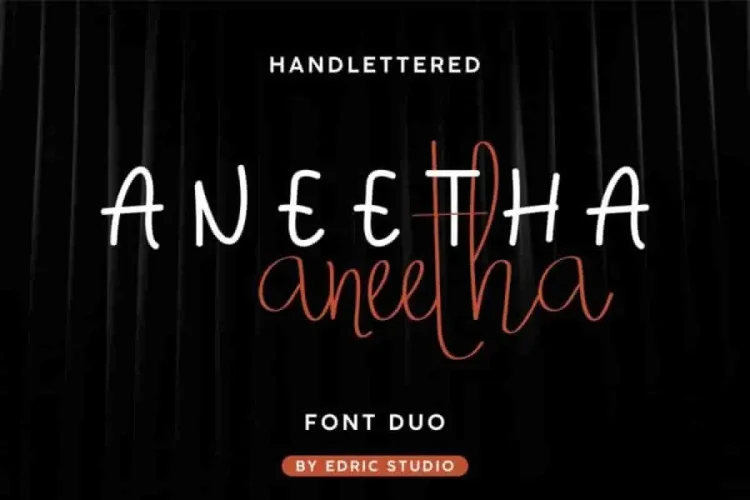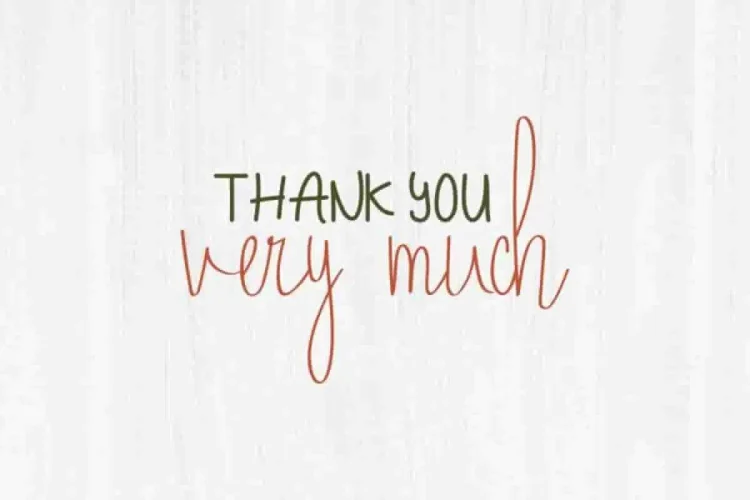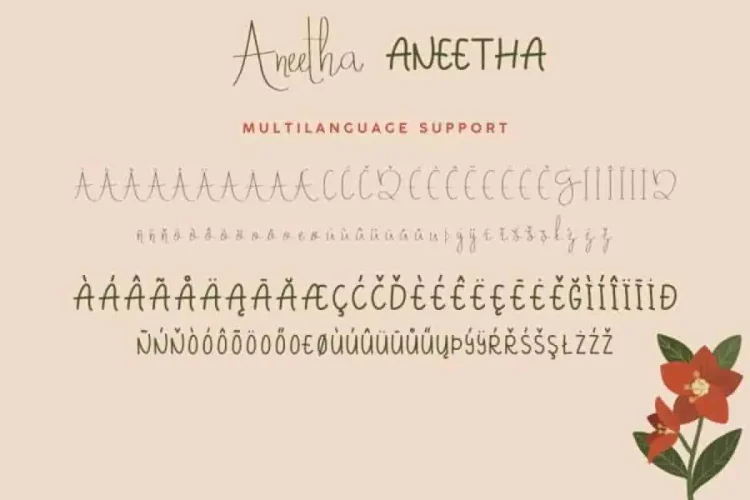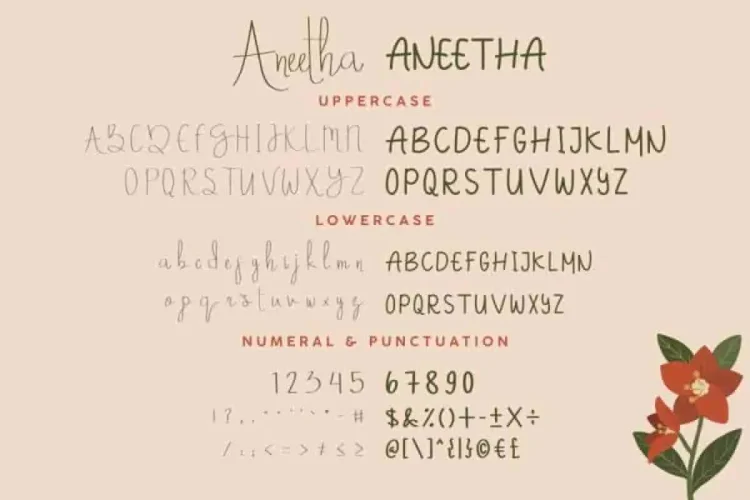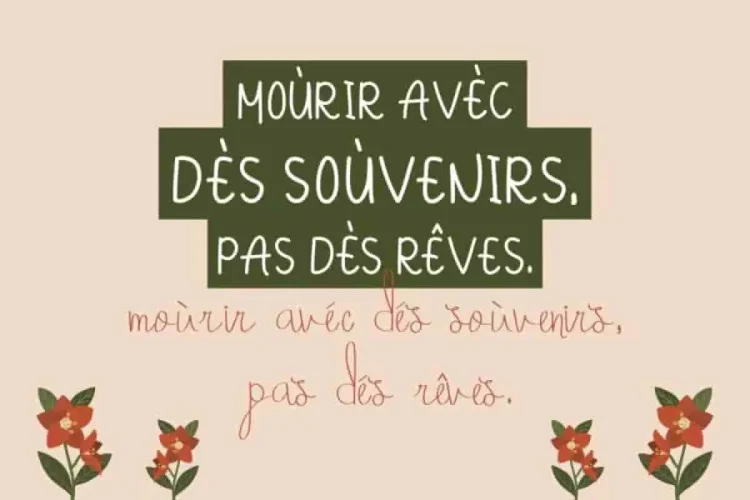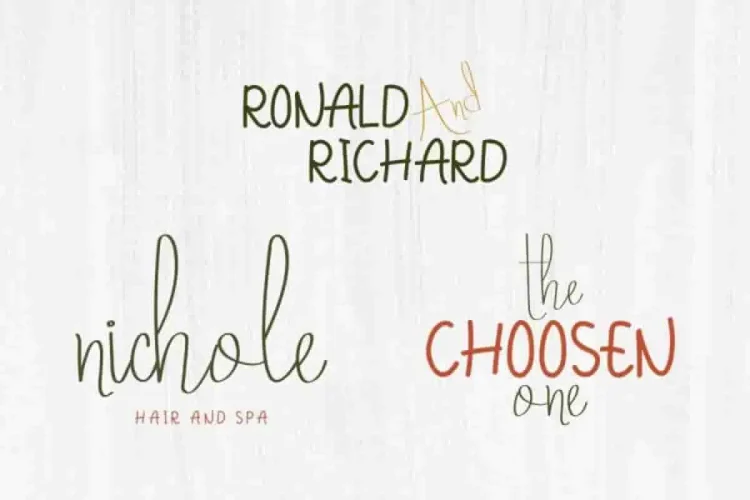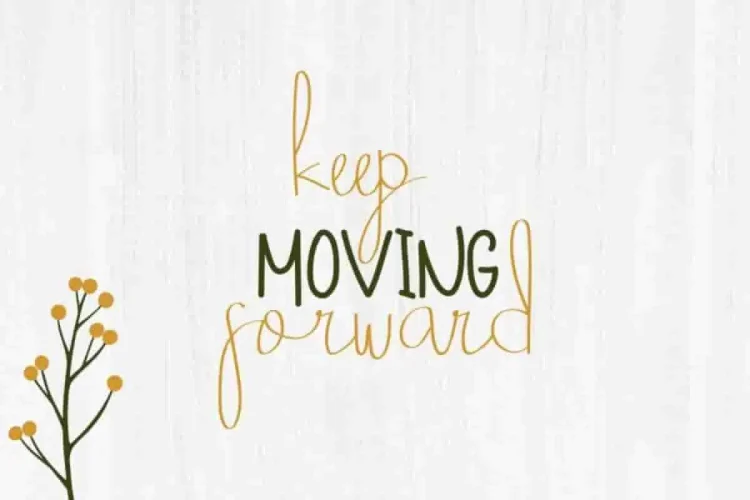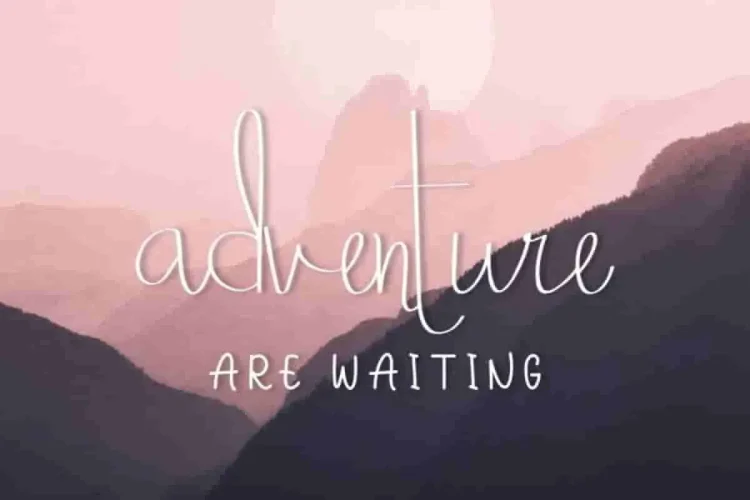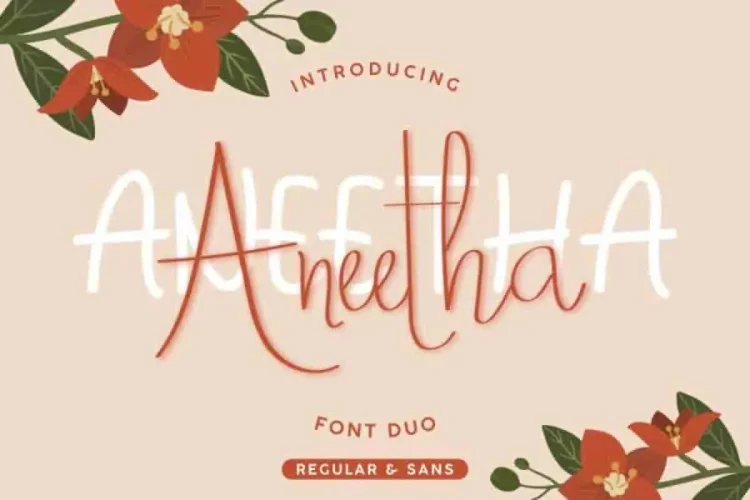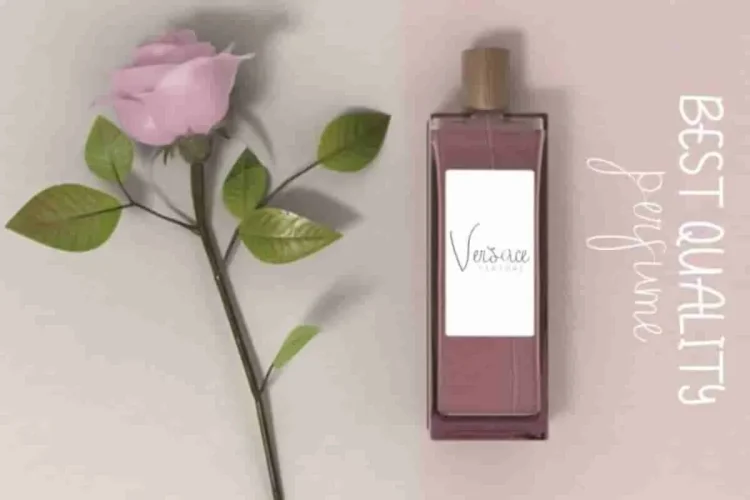
Aneetha Regular & Sans Font Duo
This is a font duo, contains two different styles : Sans and Script. Moreover,  Aneetha Font Duo styles will be awesome for any designs works.
In fact, this versatile font works beautifully across a wide range of industries — including music, law firms, legal professionals, makeup artists, dentists, wedding planners, and financial services — making it a smart choice for designers who want consistent branding in every project.
Because of its unique and elegant style, Aneetha Font Duo (with extended license) that will be perfect for  branding , logotype, stationery, card, signage, flyer, brochure, and more. As a result, it can instantly elevate the quality and personality of your designs.
No problem! Aneetha supports multilingual glyphs, making it suitable for international branding and diverse audiences.